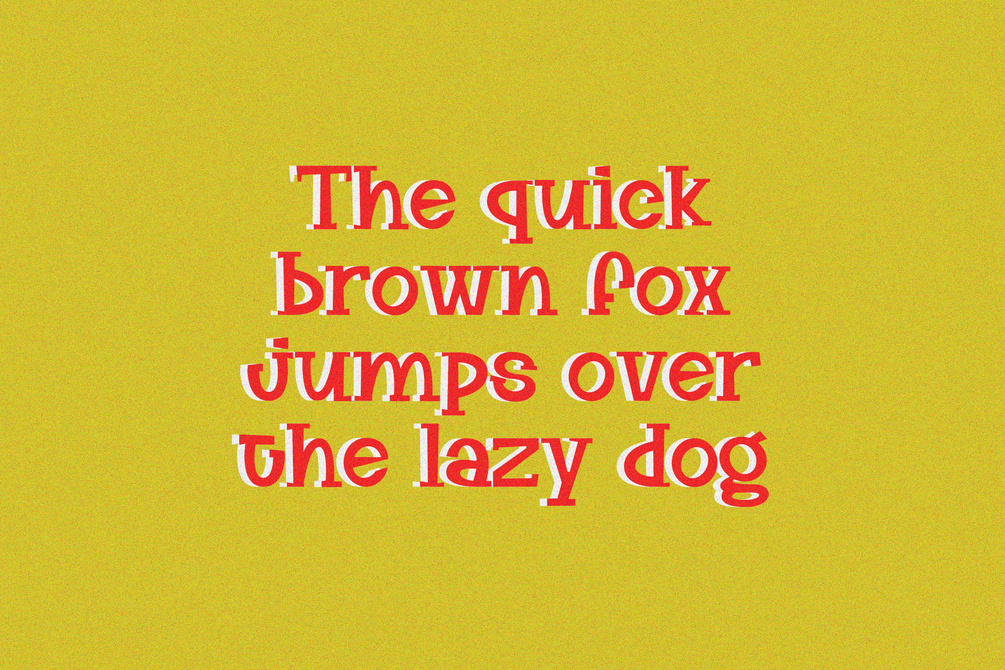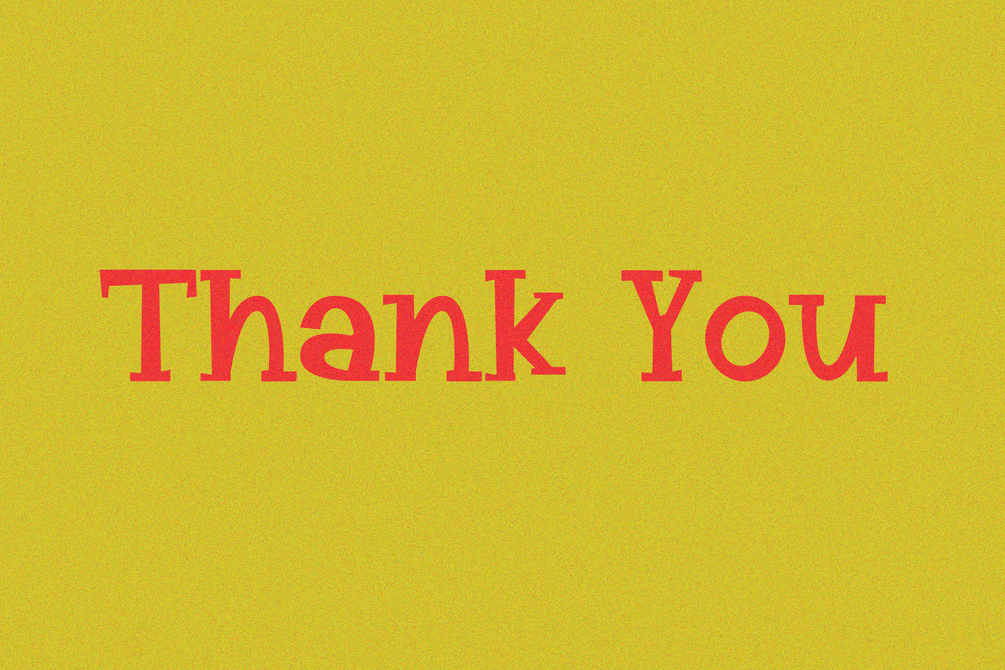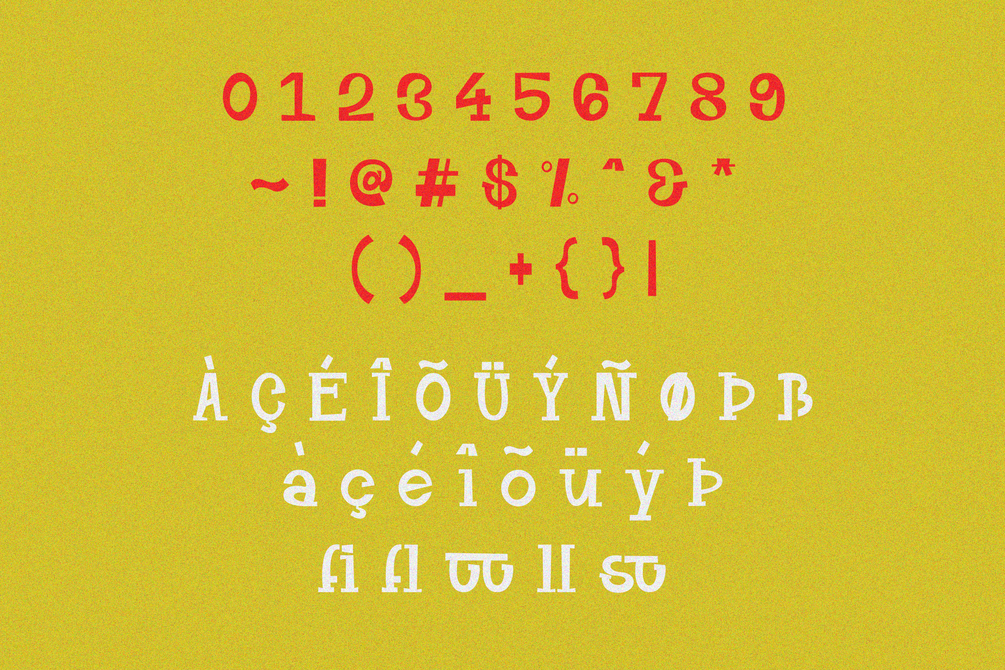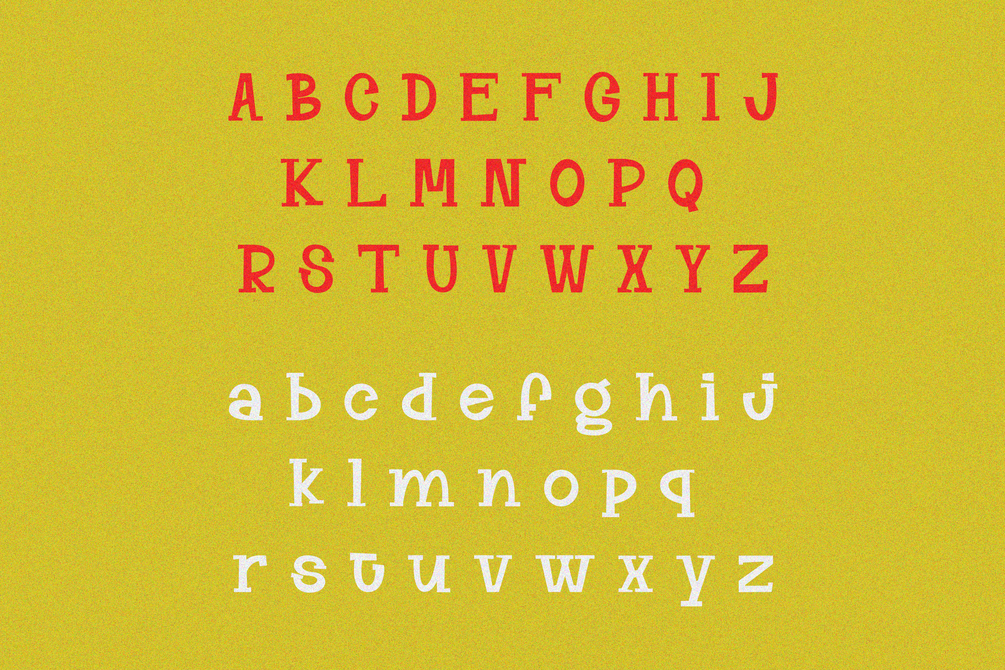
Thistora Font
Thistora is a slab font that comes with a playful style. suitable for posters, tshirt, branding, social media, and so on. contains standard English letters, numbers, punctuation, and several accents that support multilingualism.